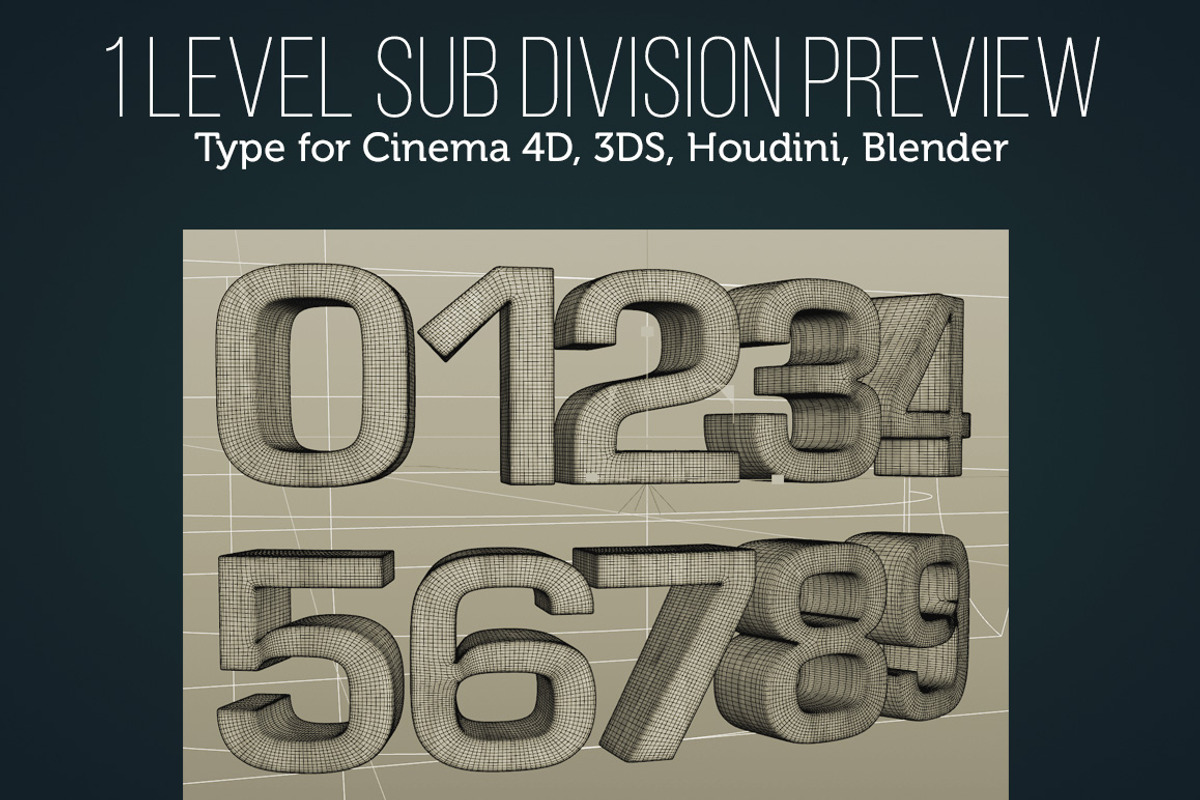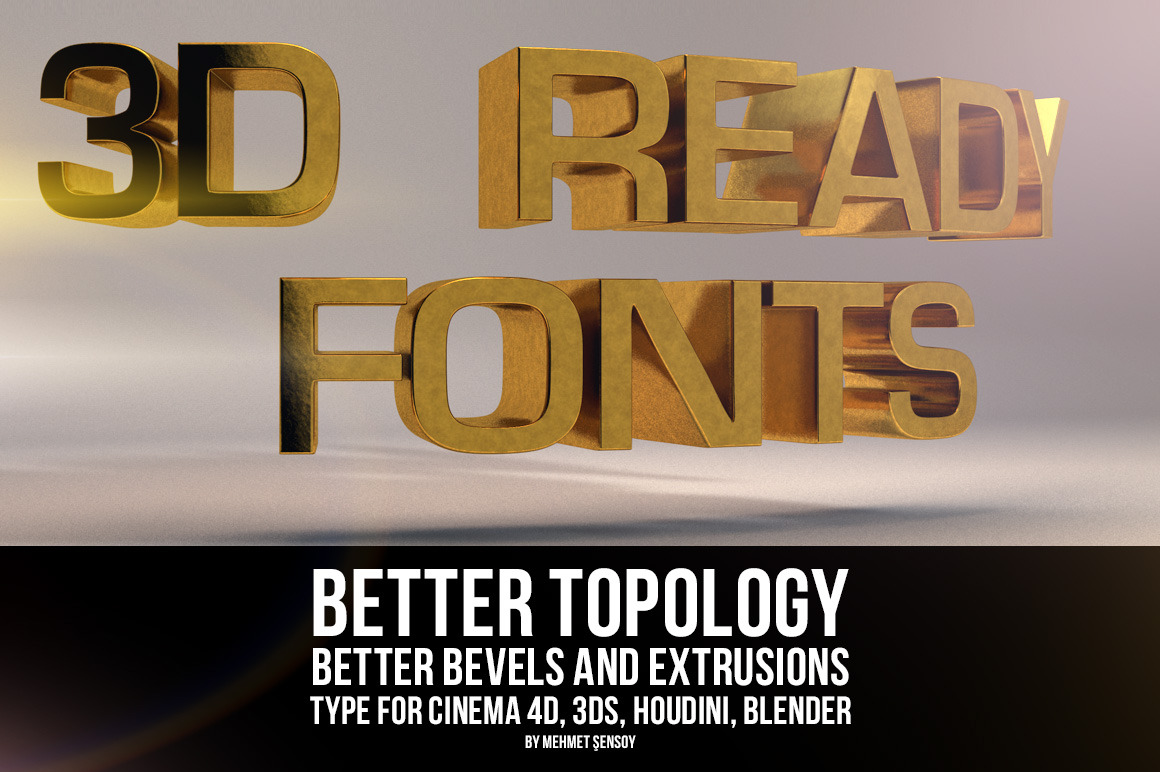
MS SUBD Font Europe
Customized and Optimized Font for 3D Applications such as Cinema 4D, Houdini, Blender and etc... Advantages;
- Better reflections
- Better texturing
- Bend, Twist or Wrap easily while preserving correct geometry.
Eurostyle Customized 3D Type Font, will give you much better topology in your 3D application, and will perform better with operations such as beveling and extruding,no more weird geometry intersections or fractures.